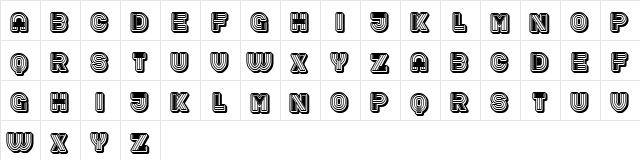
Hetrz Elegant Regular
Design Context for Hetrz Elegant Typeface
Hetrz Elegant is a composed and adaptable typeface that performs quietly and consistently across a wide range of design contexts.